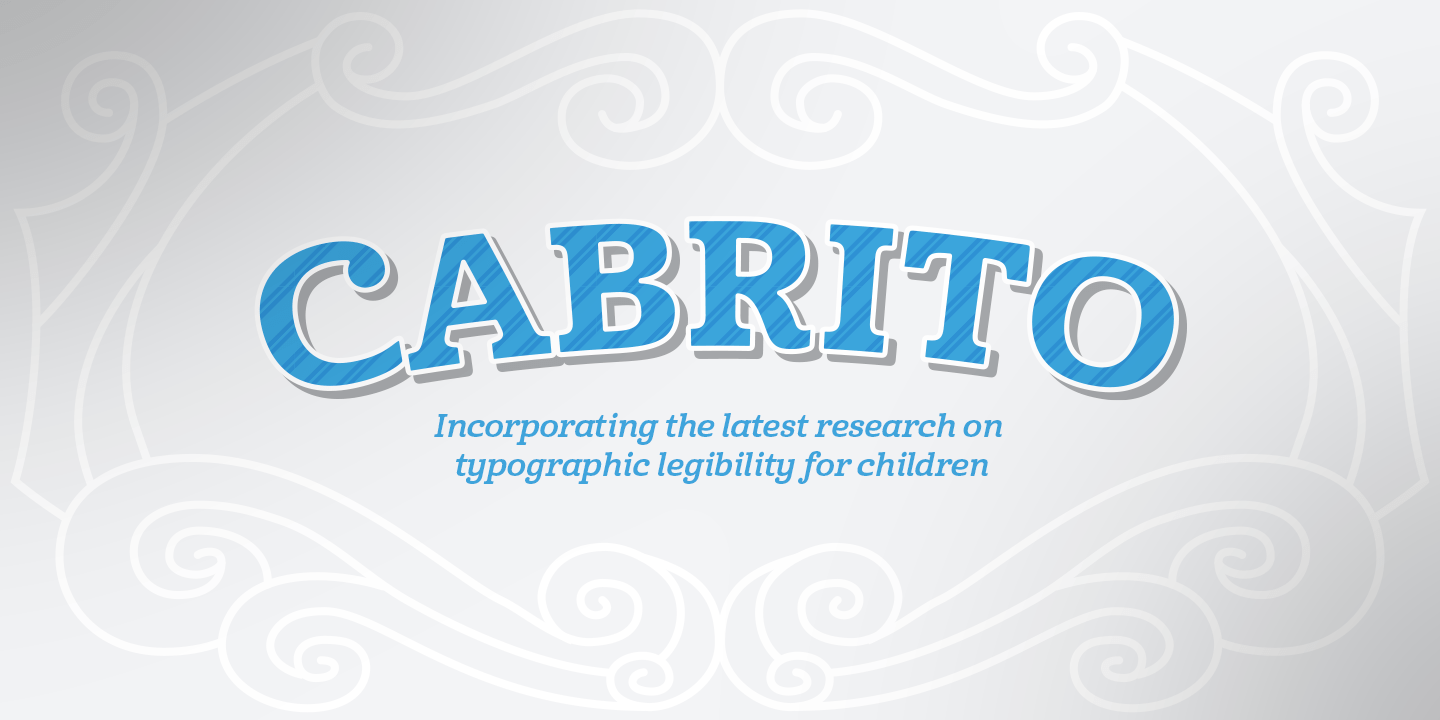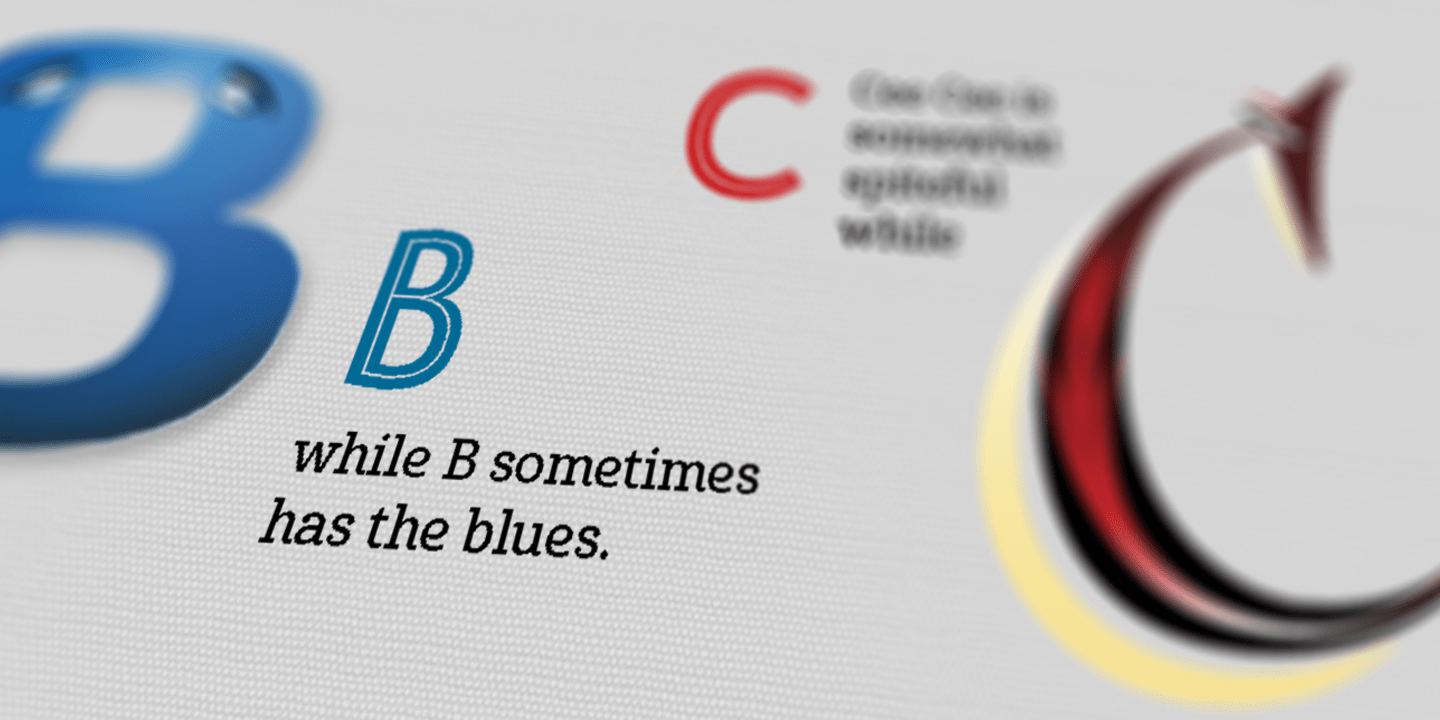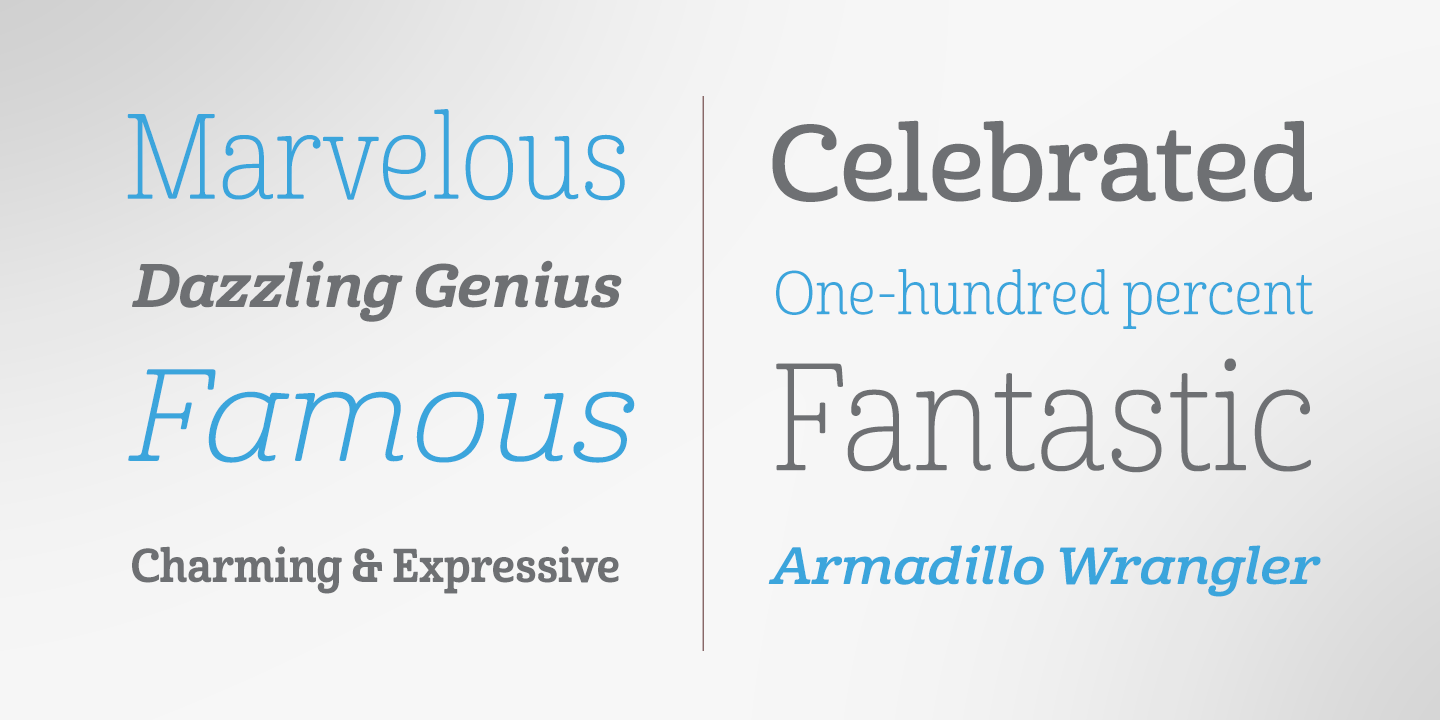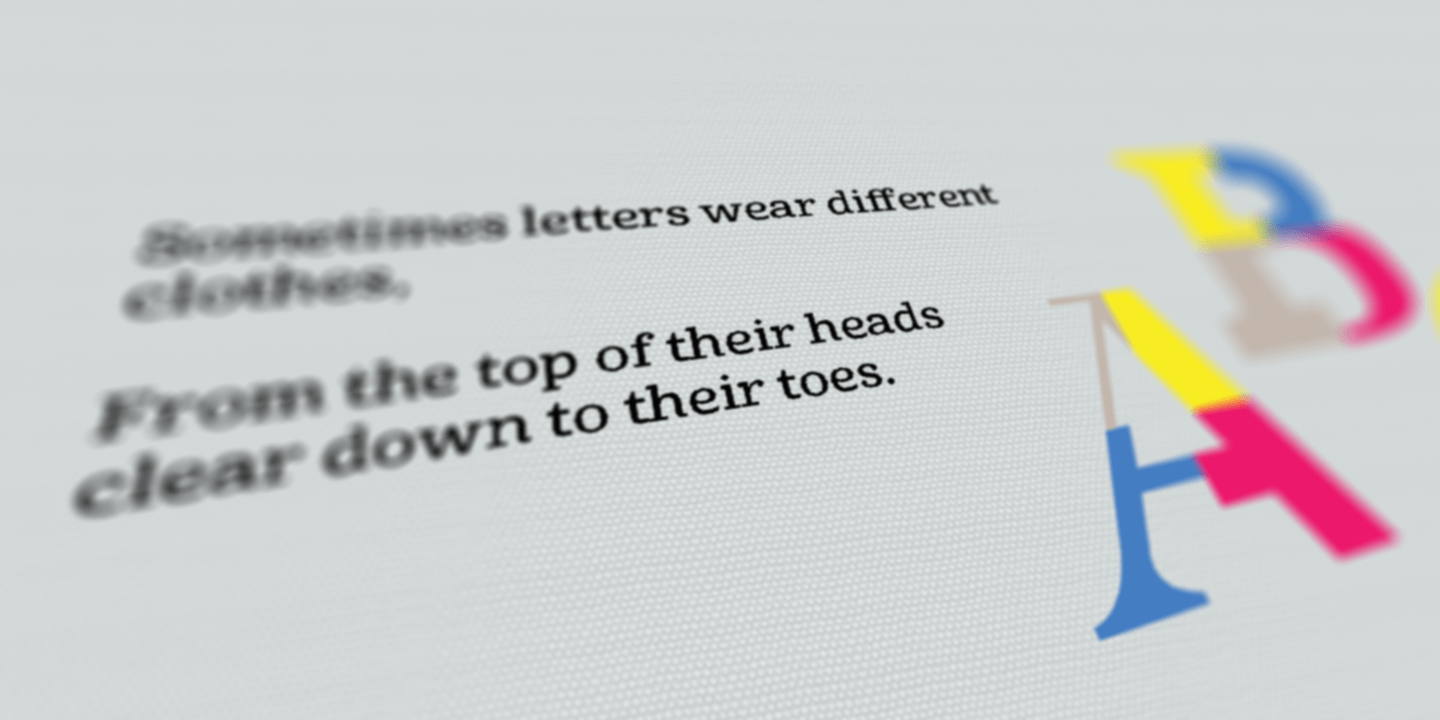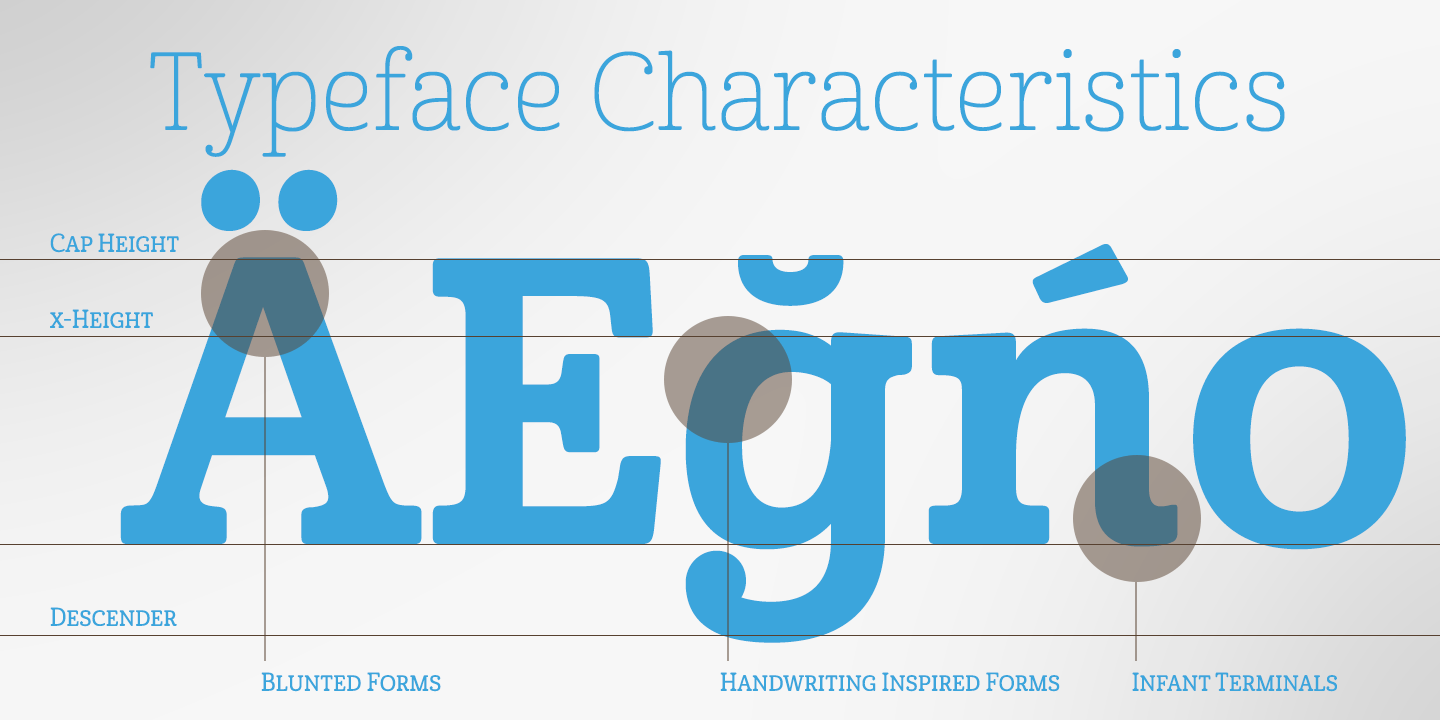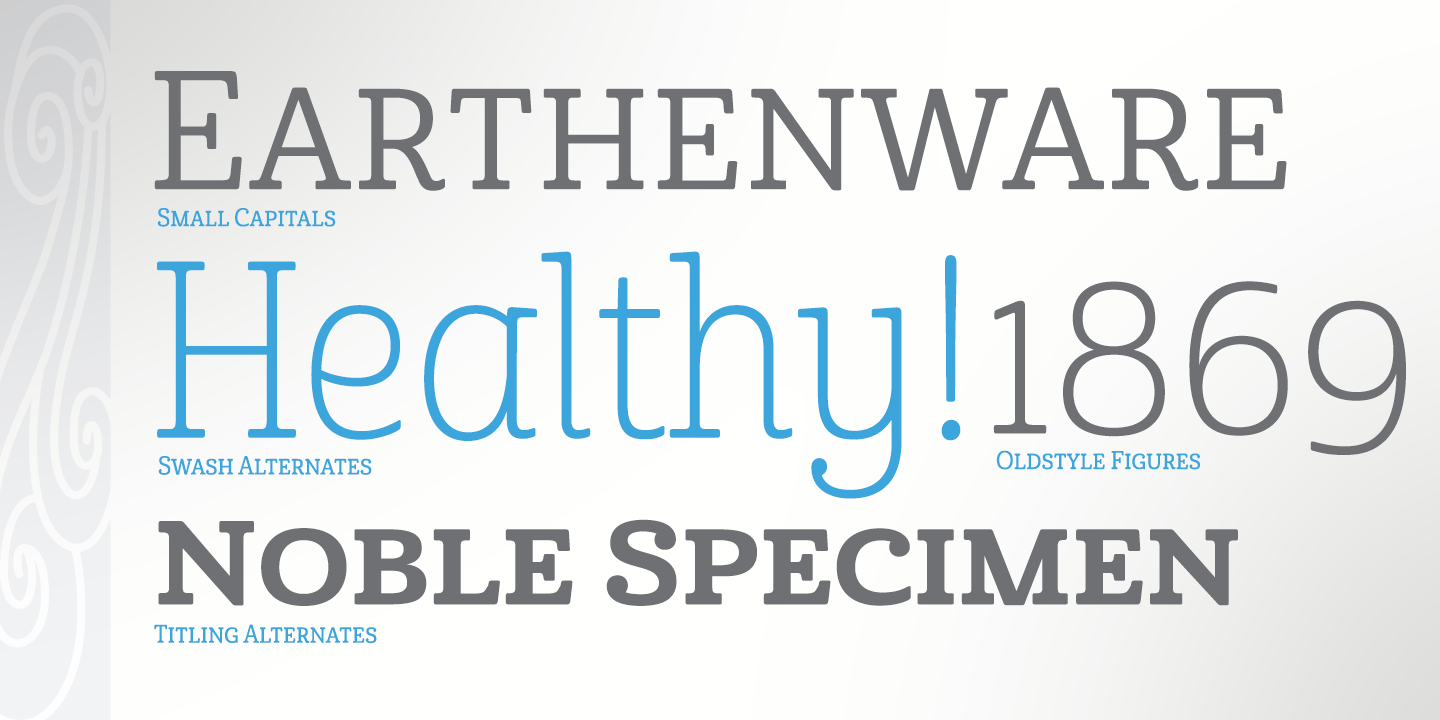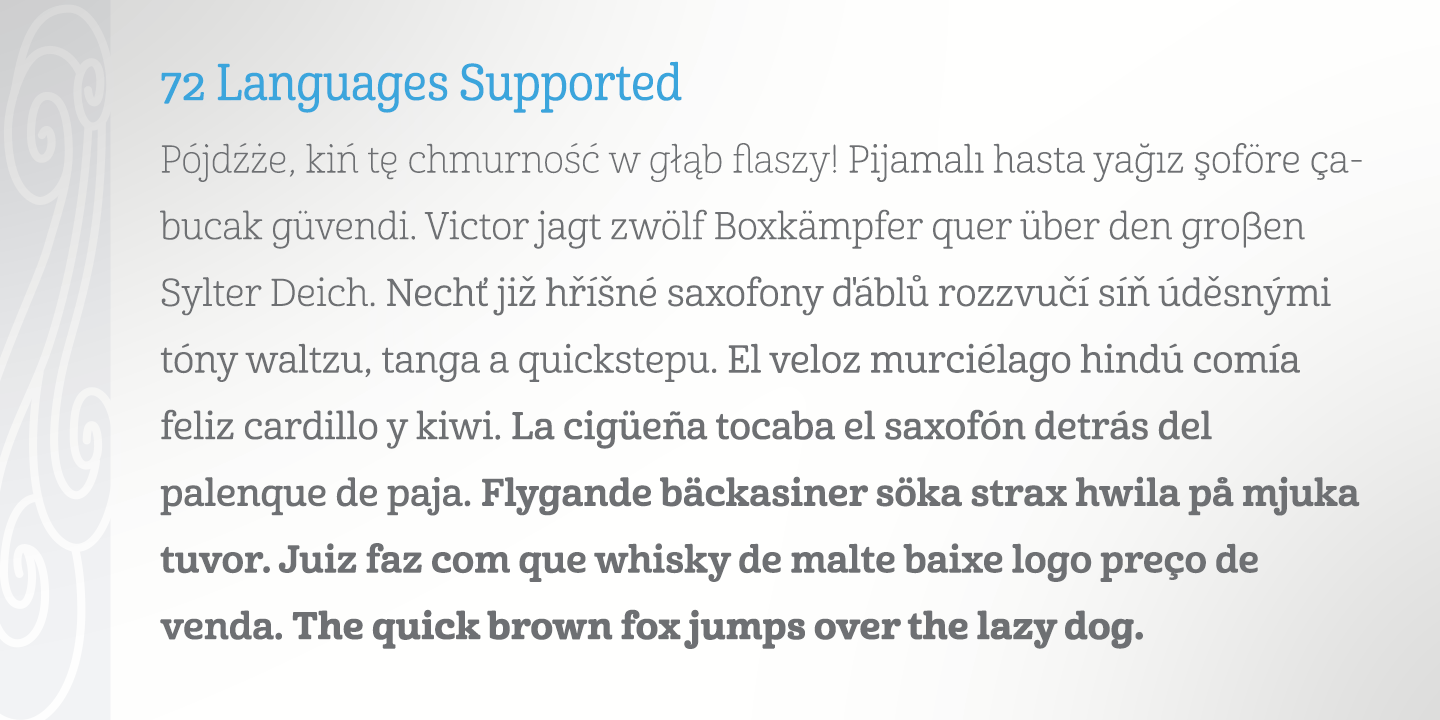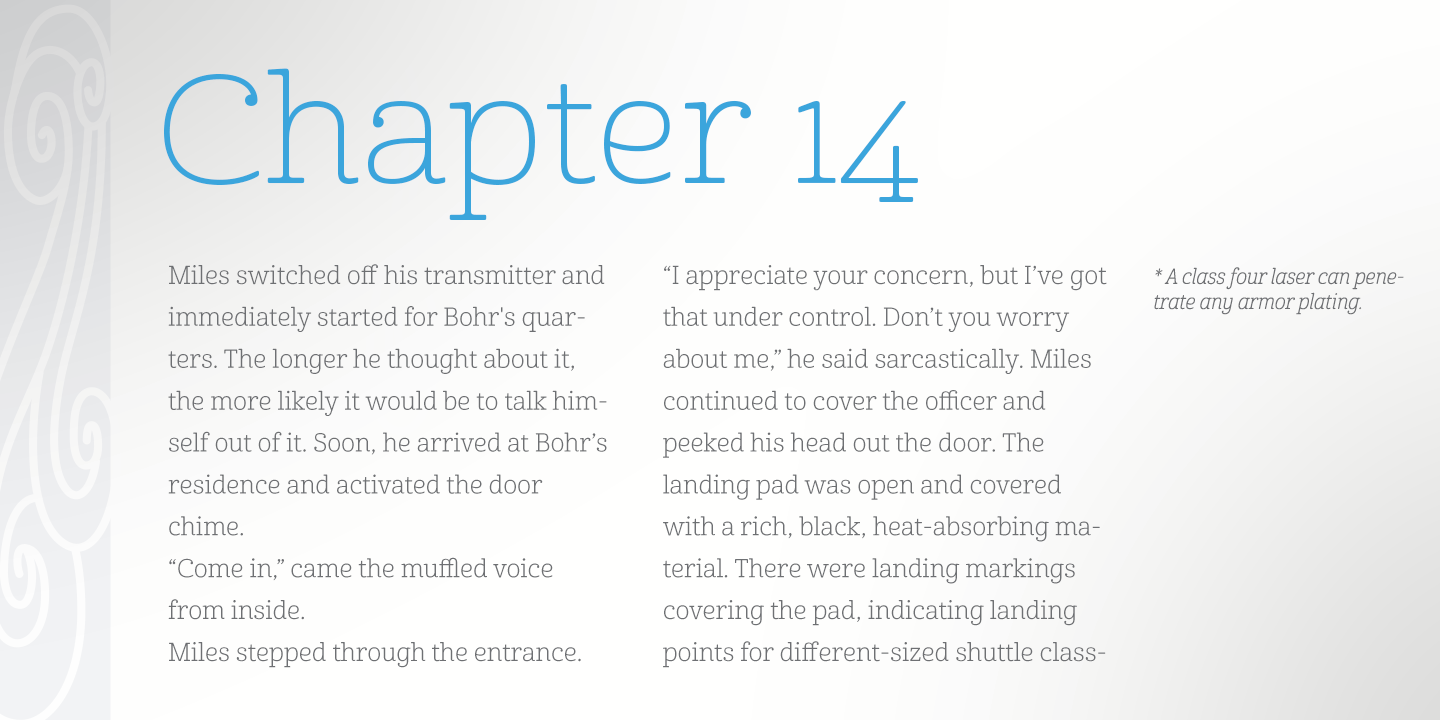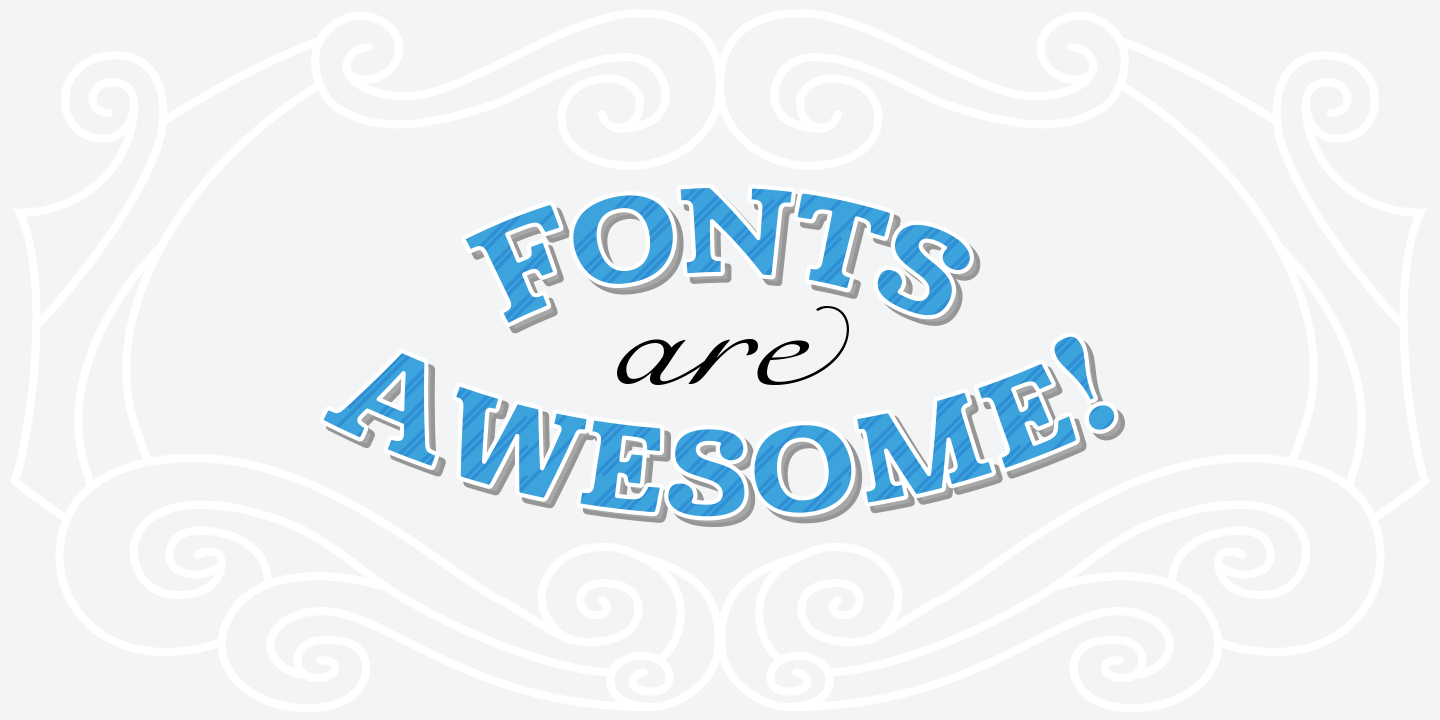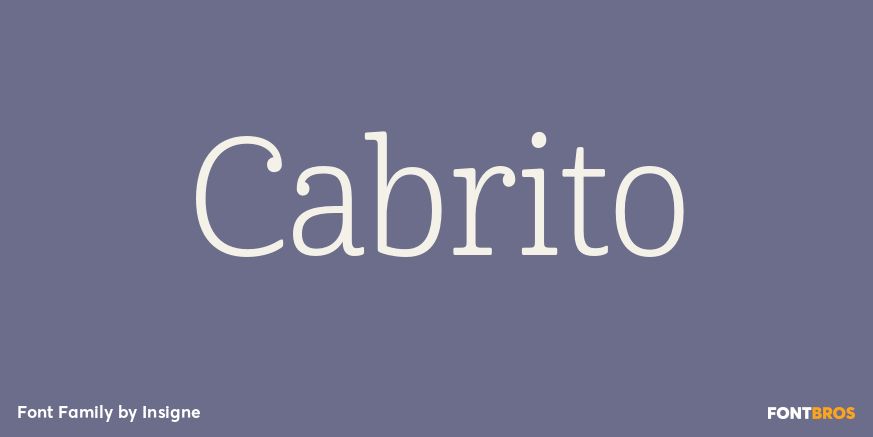
Cabrito
Some were good, some were great, but I found myself wanting to develop something using my skills and interests to make something that only I could make. In short, I realized my son needed to be indoctrinated--I mean, introduced into the wonderfully wild world of fonts.
So, I set about to make a board book to teach about typography, called ?The Clothes Letters Wear.? You can learn more about the book here, and pledge to receive a copy on Kickstarter. I've made the captivating illustrations bright and colorful, and the use of different letter forms makes for a fascinating read to delight ages young and young at heart.
And, as an added bonus, this children's book has a custom designed font. I'am always looking for an excuse to design a new font, and this book created the perfect alibi.
Drum roll, please.
I now give you . . . Cabrito (?little goat? en Espanol). This new serif typeface incorporates the latest research on typographic legibility for children, features to make it--well, extra legible. A little background: studies show that Bookman Old Style is one of the most readable typefaces, and as a consequence or perhaps the reason why, it is used thoroughly for children